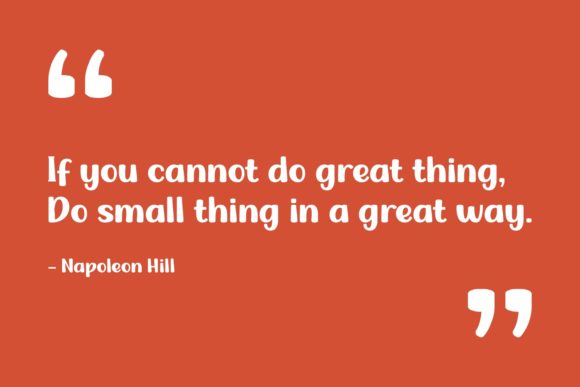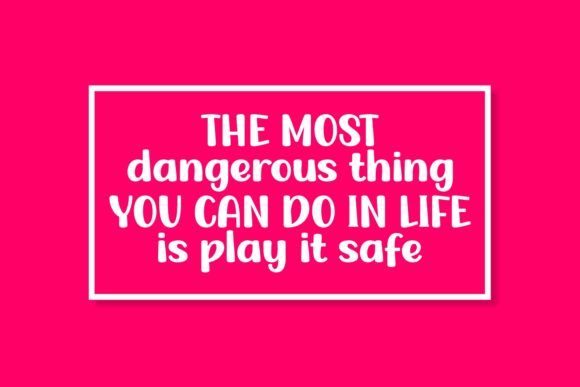
The Great Way Font: A Bold and Confident Addition to Your Design Arsenal
Ah, the elusive perfect font. You know, that one design element that can make or break a project. I recall working on a branding project for a trendy new cafe, determined to create a logo that would pop. Hours were spent scrolling through font libraries, but nothing seemed quite right. That was until I stumbled upon the Great Way font. It was love at first sight! 🎉
Great Way is a fun and bold handwritten font, crafted to give your headlines and logotype projects a unique touch. This font reads as strong, confident, and dynamic, making it perfect for designers, crafters, and creative hobbyists looking to elevate their designs.
- ✨ Unique and eye-catching: Great Way’s bold and confident design makes it perfect for headlines and logotypes.
- ✅ Highly versatile: This font can be used for a wide range of projects, from branding and advertising to packaging and more.
- 💥 Emotional connection: Great Way’s dynamic design helps create an emotional connection with your audience.
While Great Way is an excellent font, there are a few things to keep in mind: 🤔
- ⚠️ Limited use in body text: Due to its bold design, Great Way may not be the best choice for body text. It’s better suited for headlines and titles.
- ⚠️ Some letter combinations: As with any font, some letter combinations may not look perfect. Be sure to test the font with your specific text.
- Experiment with OpenType features, such as glyphs and stylistic alternates, to add more personality to your design.
The Designer Inspiration Behind Great Way
While the true story behind Great Way’s creation remains a mystery, it’s easy to imagine a designer seeking to craft a font that would inspire confidence and energy. Perhaps they wanted to create a font that would help brands stand out in a crowded market. Whatever the inspiration, Great Way is a shining example of bold, confident typography.
| Font Name | Great Way Font |
| Author | Jasm (7NTypes) |
Q: What type of projects is Great Way best suited for?
A: Great Way is perfect for headlines, logotypes, and titles. It’s ideal for branding, advertising, packaging, and more.
Q: Can I use Great Way for body text?
A: While possible, Great Way’s bold design makes it better suited for headlines and titles. For body text, consider a more traditional font.
Q: Does Great Way support OpenType features?
A: Yes, Great Way supports OpenType features, including glyphs, stylistic alternates, and more.
Q: Is Great Way suitable for digital and print designs?
A: Absolutely! Great Way’s bold design works well in both digital and print environments.